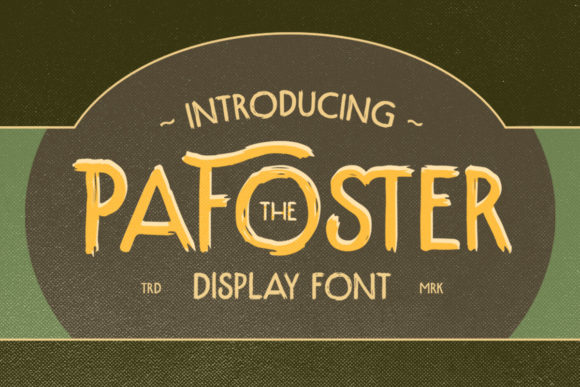
The Pafoster Font: Vintage Boldness for Modern Projects
Understanding the Visual Personality of The Pafoster
There’s a specific kind of energy that comes from vintage display typography. It carries weight, character, and an immediate sense of story without needing a single supporting image. The Pafoster Font captures this energy with precision. It’s not trying to be subtle or disappear into a paragraph of body copy. Instead, this display font steps forward with confidence, offering designers and creators a typeface that commands attention through its bold letterforms and retro-inspired aesthetic.
At its core, The Pafoster is a creative font built for moments that matter in your design. Think of the headline on a magazine cover, the wordmark on a craft beer label, or the title sequence for a brand video. These are spaces where a serif font might feel too academic and a standard sans serif font might lack personality. The Pafoster fills that gap. Its strokes carry a handcrafted quality—slightly condensed proportions, distinctive terminals, and a rhythm that feels both nostalgic and intentional. The overall impression is one of authenticity, as though each letter was drawn with purpose rather than generated algorithmically.
Where This Typeface Truly Shines
Knowing where a font performs best is just as important as understanding what it looks like. The Pafoster isn’t a universal solution, and that’s precisely its strength. It excels in specific contexts where boldness and character are non-negotiable.
Logo design and brand identity projects are a natural home for this typeface. If you’re building a brand for a craft distillery, a vintage clothing line, a barbershop, or an artisanal food company, The Pafoster delivers immediate visual shorthand. It tells your audience something about your brand’s personality before they read a single word of your about page. The font’s retro sensibility communicates heritage, craftsmanship, and a rejection of mass-produced aesthetics.
For editorial design and packaging design, the font works beautifully as a headline or accent typeface. Magazine spreads, book covers, product labels, and event posters all benefit from a typeface that can hold its own at large sizes. The Pafoster’s visual weight ensures that your headline won’t get lost, even when surrounded by competing visual elements. Its vintage character also pairs surprisingly well with contemporary layouts, creating a tension between old and new that feels fresh rather than dated.
Digital applications deserve attention too. Social media graphics demand typefaces that stop the scroll, and The Pafoster delivers that impact. Whether you’re designing Instagram story headers, YouTube thumbnails, or Pinterest pins, this font provides the visual punch needed to stand out in crowded feeds. For web design, it serves effectively as a hero section headline or a call-to-action accent, though pairing it with a clean sans serif font for body text is essential for readability.
Crafters and hobbyists will find this premium font equally valuable. Custom invitations, greeting cards, wedding stationery, wall art prints, and personalized gifts all benefit from typography that feels special and intentional. The Pafoster brings that handcrafted, boutique quality to personal projects without requiring advanced design skills.
How Font Choice Shapes Perception and Engagement
Typography isn’t decoration. It’s communication. The fonts you choose directly influence how people perceive your message, your brand, and your credibility. This is where understanding modern typography principles becomes practical rather than theoretical.
Visual hierarchy depends heavily on contrast. When you pair The Pafoster with a simpler body typeface, you create an immediate distinction between headline and supporting text. The reader’s eye knows exactly where to land first, then where to continue. This isn’t just aesthetic preference—it’s how people actually process visual information. A bold display font like The Pafoster anchors the hierarchy, giving your layout structure and clarity.
Brand perception shifts meaningfully based on typographic choices. A brand that uses The Pafoster in its logo design communicates something different than one using a geometric sans serif. The vintage personality suggests authenticity, attention to detail, and a willingness to stand apart from trends. For entrepreneurs and small business owners, this kind of differentiation matters enormously. Your typography is often the first impression, and first impressions are difficult to revise.
Audience engagement responds to visual interest. A layout set entirely in predictable, safe fonts can feel monotonous. Introducing a characterful typeface like The Pafoster at strategic points—headlines, pull quotes, feature labels—creates visual rhythm. It gives the reader’s eye something to notice, something to remember. This is particularly relevant for content creators and marketers competing for attention across digital platforms where visual noise is constant.
Practical Guidance for Working with The Pafoster
The best typography decisions come from understanding both the tool and the context. The Pafoster is a powerful design asset when used thoughtfully—paired wisely, sized appropriately, and deployed in projects that benefit from its personality. Take the time to experiment, test it in your specific applications, and see how it transforms your work. That hands-on exploration is where good design decisions actually happen.